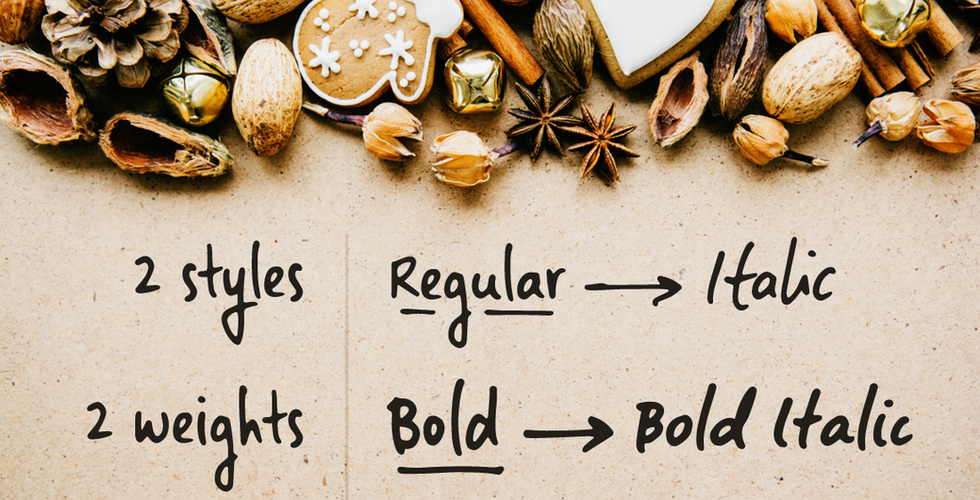
New font! Landslide
It's been a while since my last blog post/ font release, but hopefully this new one will have been worth the wait. So, say hello to Landslide, my latest handwritten font!
Landslide was named after one of my favorite Fleetwood Mac songs and includes a bunch of goodies:
True bold, italic and bold italic versions of the font, drawn from scratch;
An extra set of ornaments (underlines, swashes, arrows, circles, hearts, stars, etc);
Tons of ligatures in each font.
Landslide
Landslide is perfect for any design that needs a handwritten feel, such as signatures, notes and quotes, logos and branding. Check out the font "in action" below.
Landslide